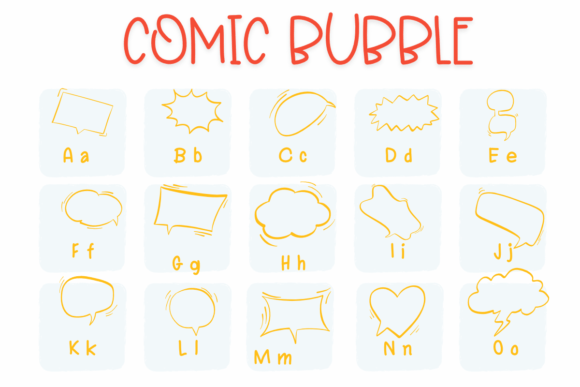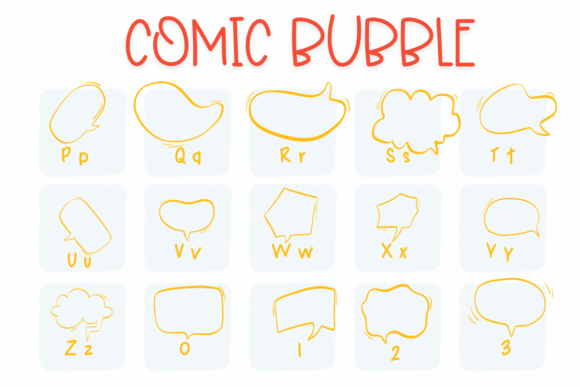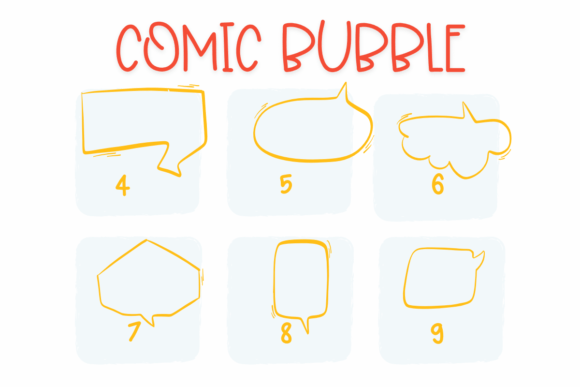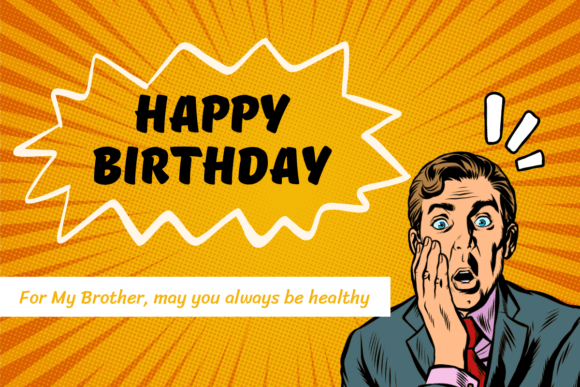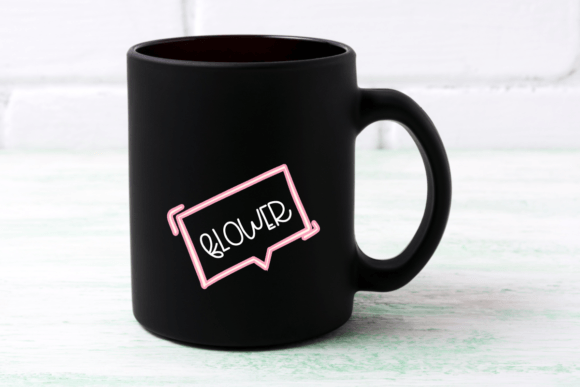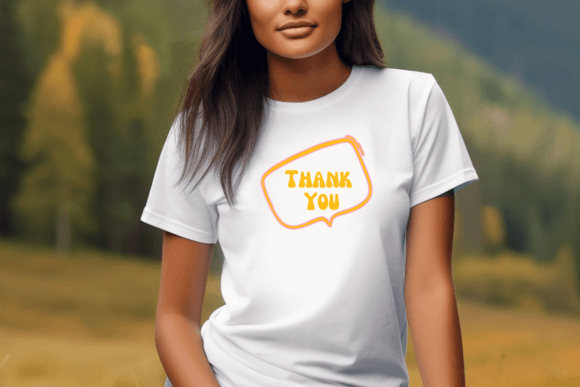
Introducing Comic Bubble Font: The Playful Dingbats Font for Creative Projects
Are you looking for a font that can add a touch of whimsy and fun to your creative projects? Look no further than Comic Bubble Font, a cute dingbats font that’s perfect for a variety of applications. In this article, we’ll explore the features and benefits of Comic Bubble Font, and show you how it can enhance your wedding invitations, DIY projects, crafts, decorations, logos, and more.
What is Comic Bubble Font?
Comic Bubble Font is a unique and playful dingbats font that’s designed to bring a smile to your face. It’s a collection of fun and colorful symbols, shapes, and characters that can be used to add a touch of personality to your projects. The font is carefully crafted to resemble comic book bubbles, making it perfect for projects that require a fun and lighthearted theme.
Features of Comic Bubble Font
- Cute and Playful Design: Comic Bubble Font features a range of adorable symbols, shapes, and characters that are sure to add a touch of fun to your projects.
- Dingbats Font: This font is a dingbats font, which means it’s a collection of symbols and characters rather than letters and numbers.
- Versatile: This font can be used for a wide range of projects, from wedding invitations and DIY crafts to decorations, logos, and more.
Uses for Comic Bubble Font
Comic Bubble Font is a versatile font that can be used for a variety of creative projects. Here are some ideas to get you started:
- Wedding Invitations: Add a touch of whimsy and fun to your wedding invitations with Comic Bubble Font. Use it to create custom illustrations, borders, and other design elements.
- DIY Crafts: Comic Bubble Font is perfect for DIY crafts, such as handmade cards, gift tags, and other paper crafts.
- Decorations: Use Comic Bubble Font to create custom decorations, such as garlands, banners, and other signage.
- Logos: Add a touch of personality to your logos with Comic Bubble Font. Use it to create custom illustrations and design elements.
- Crafts: Comic Bubble Font is perfect for a variety of crafts, including scrapbooking, journaling, and other paper crafts.
Here are some tips for using Comic Bubble Font in your creative projects:
- Experiment with Different Sizes and Colors: Comic Bubble Font looks great in a variety of sizes and colors. Experiment with different combinations to find the one that works best for your project.
- Combine with Other Fonts: Comic Bubble Font pairs well with other fonts, such as script fonts and sans serif fonts. Try combining it with other fonts to create a unique and interesting design.
- Use it to Add Visual Interest: Comic Bubble Font is a great way to add visual interest to your projects. Use it to create custom illustrations, borders, and other design elements.
Comic Bubble Font is a fun and playful dingbats font that’s perfect for creative projects. With its cute and playful design, easy-to-use features, and versatility, it’s a great addition to any designer’s or crafter’s toolkit. Whether you’re creating wedding invitations, DIY crafts, decorations, logos, or other projects, Comic Bubble Font is sure to add a touch of whimsy and fun. So why not give it a try and see what creative possibilities you can come up with?